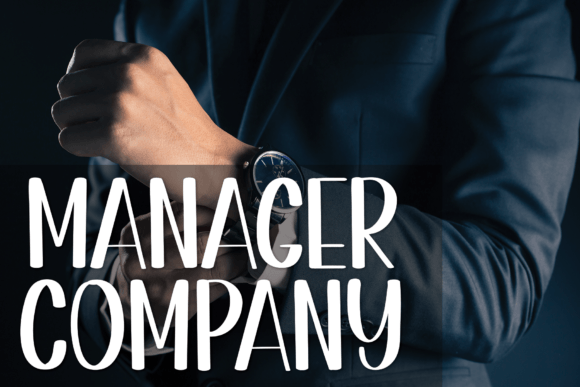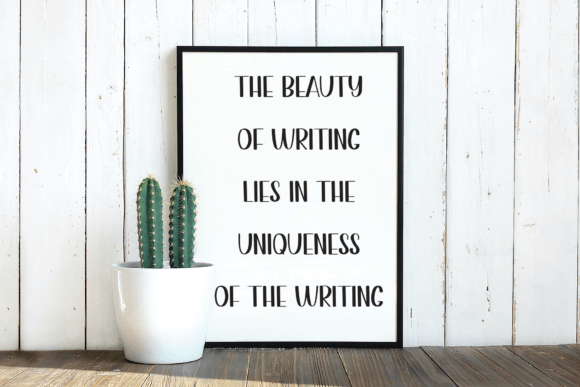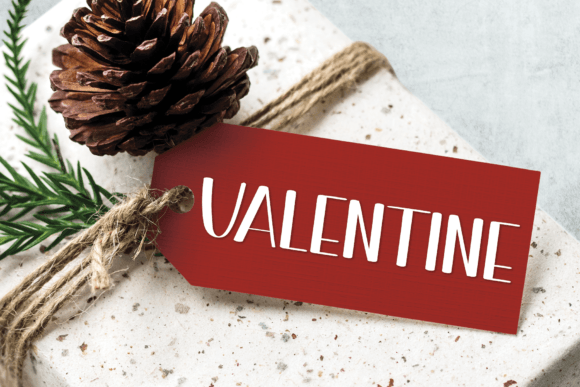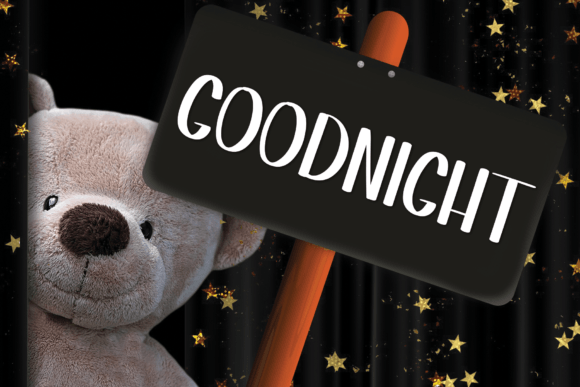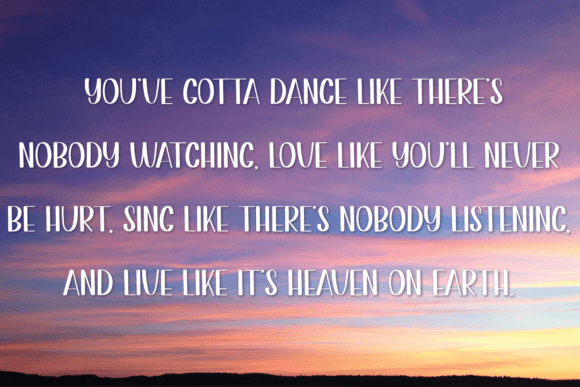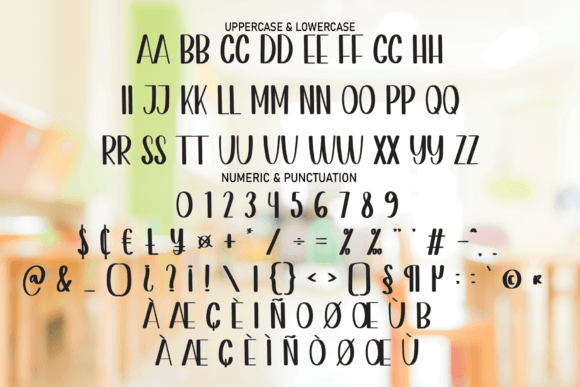
Introduction to Indoor School Font
Have you ever been stuck on a creative project, scrolling through font options, searching for the perfect combination of style and professionalism? For designers, finding the right font can make all the difference in bringing a concept to life. That’s where the Indoor School Font comes in – a clean and elegant handwritten typeface that’s sure to elevate your next design project.
Whether you’re working on a high-quality brochure or a free download template, the Indoor School Font is an excellent choice. Its casual vibe and versatility make it suitable for a wide range of applications, from creative projects to everyday design needs. With its transparent background and high-quality design, this font is a valuable resource for any designer looking to add a touch of sophistication to their work.
Key Features of Indoor School Font
- Features a unique, modern design with a clean and minimalist aesthetic, perfect for educational institutions and indoor settings.
- Includes a range of characters, including uppercase and lowercase letters, numbers, and punctuation marks, making it suitable for various design applications.
Honest Review: Indoor School Font
As a designer, I’m always on the lookout for unique and high-quality fonts to add some personality to my creative projects. Recently, I came across the Indoor School Font, and I have to say, it’s a real gem.
- ✨ The quality is top-notch, with crisp lines and a transparent background that makes it easy to use on any design surface.
- ✨ The font is incredibly versatile, with a range of styles and weights that make it perfect for everything from logos to typography-heavy projects.
- ⚠️ The font is quite bold, which may not be suitable for all types of projects. It’s best used for creative projects that need a statement piece.
Overall, I’m really impressed with the Indoor School Font. It’s a fantastic design resource that’s perfect for creative projects that need a bold, eye-catching font. With its high-quality design and transparent background, it’s a great choice for designers looking to add some personality to their work.
Getting the Most Out of the Indoor School Font
For a creative project, use the Indoor School Font in combination with other design elements to create a cohesive look. Experiment with different font sizes, colors, and transparency levels to achieve the desired effect.
The Indoor School Font is ideal for educational projects, such as creating presentation slides, posters, or brochures. It can also be used in creative projects, like designing a website or a social media graphic. With its high-quality design and transparent background, the Indoor School Font is a valuable design resource for any project.